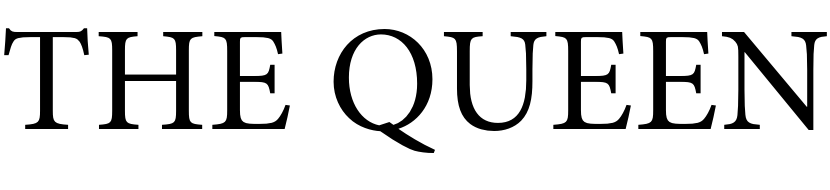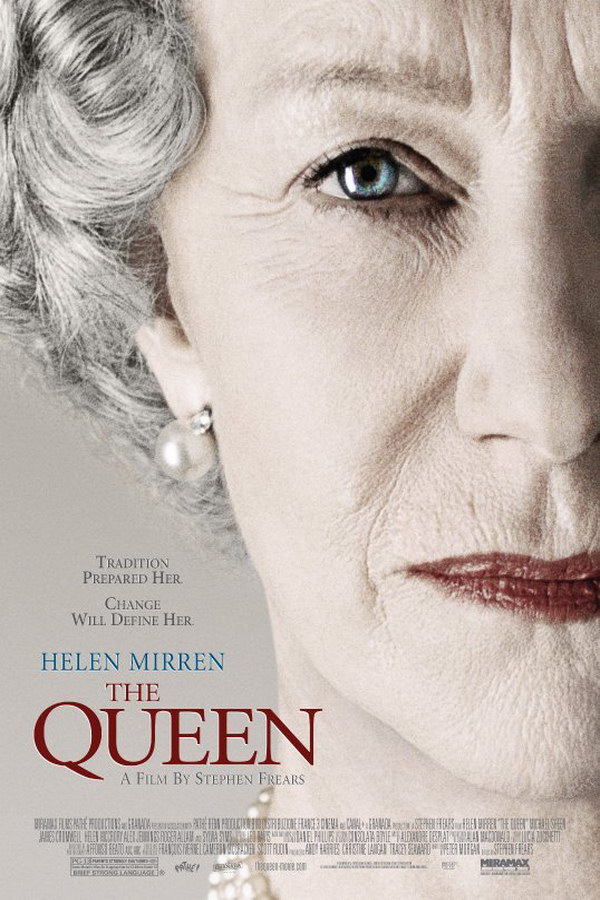
The Queen Font
Fonts in UseThe Queenis a 2006 British drama film directed by Stephen Frears, starring Helen Mirren as Queen Elizabeth II. The film explores the events surrounding the death of Princess Diana and the royal family's response to the tragedy.